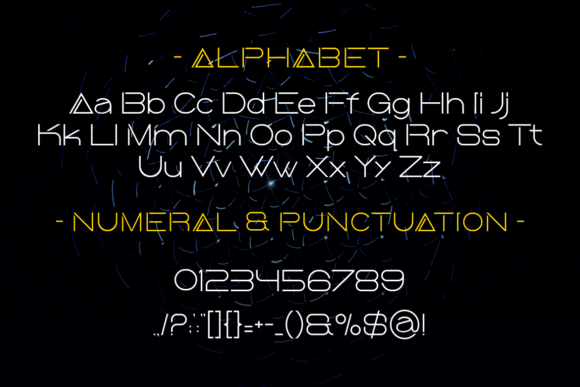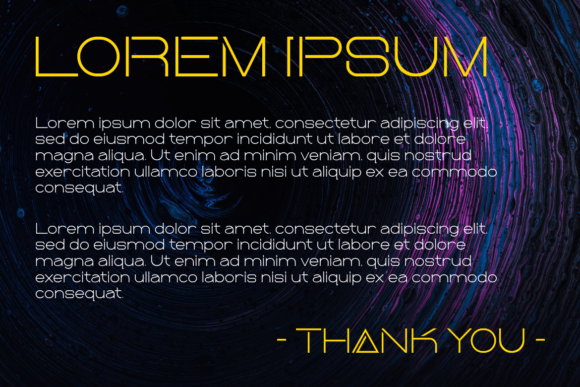
The Designer’s Delight: Uncovering the Power of Aquanix Font
This stunning sans serif font has been a game-changer for me and countless other designers. Its bold and authentic style makes it perfect for a wide range of applications, from logos and t-shirt printing to product packaging and more. In this article, I’ll dive into the world of Aquanix Font, sharing my honest review, practical tips on how to use it, and some fantastic alternatives to explore.
- ✅ Bold and eye-catching: Aquanix Font is perfect for making a statement. Its bold style ensures that your text will stand out in any context.
- ✅ Authentic feel: This font has a genuine, down-to-earth vibe that’s perfect for brands looking to connect with their audience.
- ✅ Versatile: Whether you’re working on a logo, brochure, or social media graphics, Aquanix Font adapts seamlessly to any design.
- ✅ Easy to read: Despite its bold style, Aquanix Font remains surprisingly legible, even at smaller sizes.
- ⚠️ Limited OpenType features: While Aquanix Font does offer some OpenType features, it’s not as extensive as some other fonts on the market.
- ⚠️ May not be suitable for body text: Due to its bold style, Aquanix Font is best used for headlines and titles rather than large blocks of body text.
The Story Behind Aquanix Font: Designer Inspiration
Aquanix Font was designed with the goal of creating a bold and authentic sans serif font that would cut through the noise. Inspired by modern urban landscapes and the world of high-end fashion, the designer aimed to craft a font that would exude confidence and sophistication. With its sleek lines and bold style, Aquanix Font is the perfect reflection of this vision.
| Font Name | Aquanix Font |
| Author | Marvadesign |
Q: What is the best use for Aquanix Font?
A: Aquanix Font is perfect for bold, eye-catching designs such as logos, t-shirt printing, product packaging, and more.
Q: Is Aquanix Font suitable for body text?
A: While Aquanix Font is legible, its bold style makes it better suited for headlines and titles rather than large blocks of body text.
Q: Does Aquanix Font offer OpenType features?
A: Yes, Aquanix Font offers some OpenType features, including stylistic alternates and glyphs.